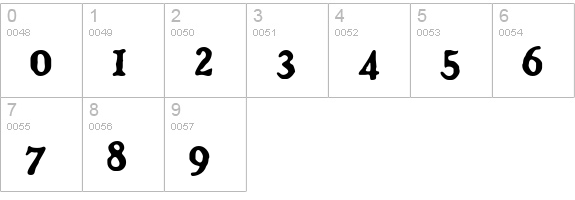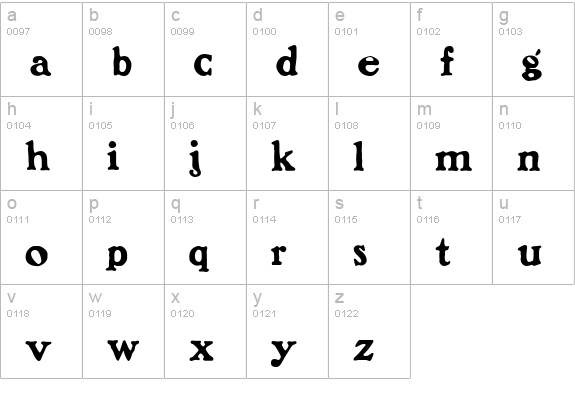
Benjamin Franklin Font Details
Benjamin Franklin font is a timeless and elegant typeface inspired by the classic typography of historical documents. With its clean lines and sophisticated appearance, this font exudes a sense of tradition and refinement. Perfect for adding a touch of sophistication to your designs, the Benjamin Franklin font is versatile and can be used for a wide range of projects. Best of all, this exquisite font is available for free download at FontsMarket.com. Whether you're working on a digital project or creating printed materials, the Benjamin Franklin font is sure to elevate your design and make a lasting impression. Download this beautiful font today and add a touch of elegance to your work.